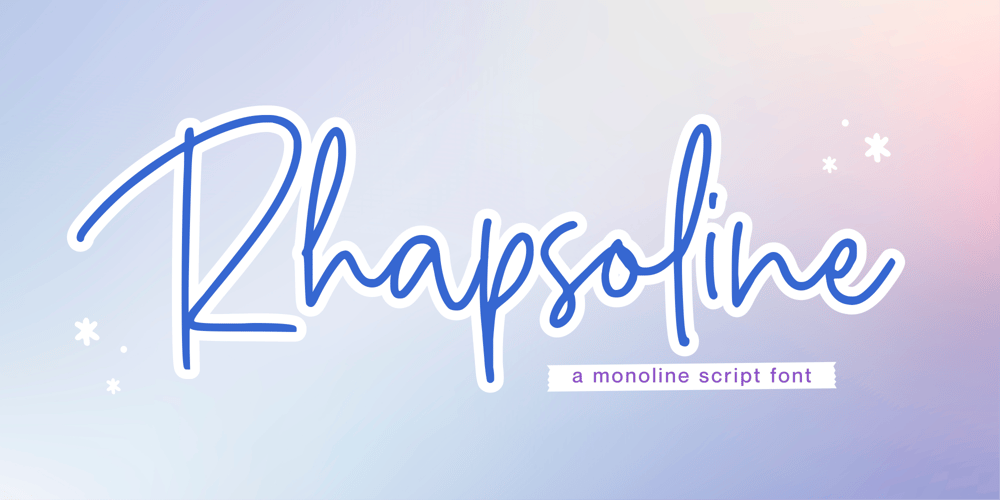
Rhapsoline Font Family was designed by Fachrizal Yusuf and published by Allouse Studio. Rhapsoline contains 1 styles and family package options. Proudly Presenting, Rhapsoline A Monoline Script Font.Rhapsoline is perfect for any titles, logo, product packaging, branding project, megazine, social media, wedding, or just used to express words above the background.Rhapsoline also come with Multi-Lingual Support.Enjoy the font, feel free to comment or feedback, send me PM or email. Thank you!